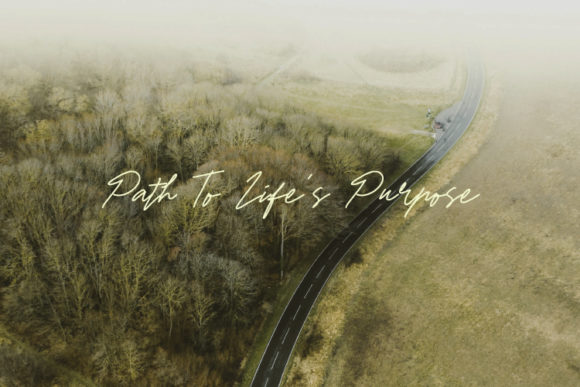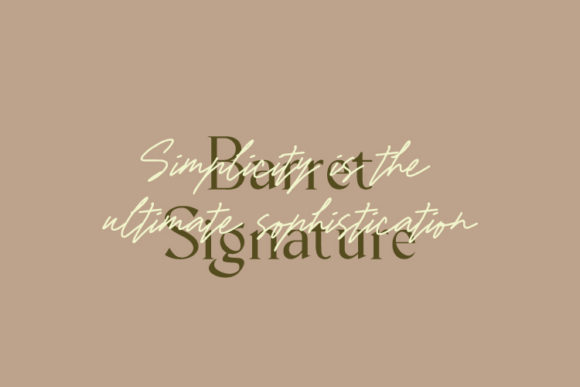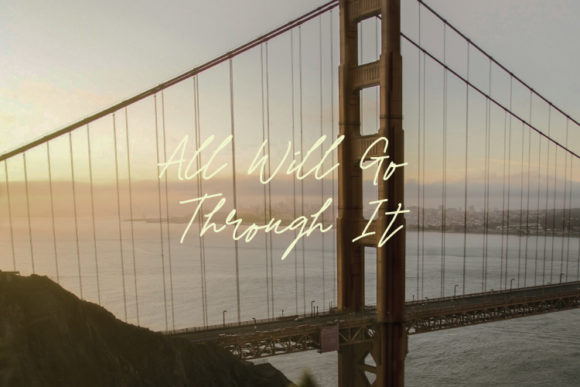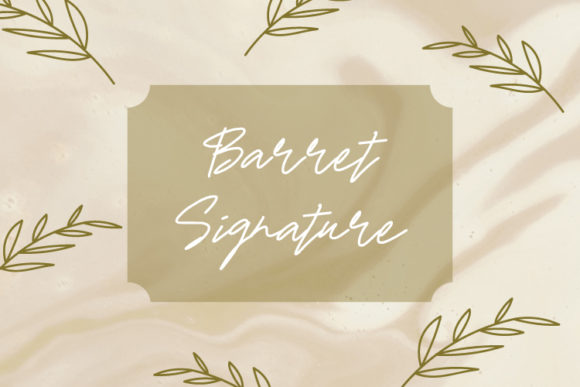
About Barret Signature Font
“Barret Signature” sounds like a fresh and relaxed handwritten font that offers versatility and ease. With its casual and laid-back style, this font is perfect for various design applications, making it a valuable asset for a wide range of projects.
By using “Barret Signature” in your designs, you can achieve a sense of freshness and relaxation. Its handwritten style adds a personal and artistic touch, making your creations feel more approachable and inviting.
This font’s versatility shines through, making it suitable for various design contexts. Whether you’re working on poster designs, book covers, merchandise, fashion campaigns, newsletters, advertising, magazines, greeting cards, album covers, or any other project, “Barret Signature” can effortlessly enhance the visual appeal and create a relaxed and engaging atmosphere.
With “Barret Signature,” you have a font that adds a touch of ease and laid-back charm, making your projects visually stunning and captivating.
Incorporate “Barret Signature” into your designs, and you’ll see how it brings a sense of freshness and relaxation, making your creations truly exceptional and inviting.
While embracing the fresh and relaxed vibe of “Barret Signature,” remember to maintain readability and legibility, especially for longer texts. Proper spacing and alignment between letters ensure that the text remains clear and easy to read, preserving the font’s overall laid-back and approachable appeal.
In conclusion, “Barret Signature” is a fresh and relaxed handwritten font that adds a touch of ease to your designs. Embrace its casual and laid-back style, and let it be the font that enhances the freshness and approachability of your poster designs, book covers, merchandise, fashion campaigns, newsletters, and other creative projects. With “Barret Signature,” your designs will exude a sense of relaxation and captivate the hearts of your audience, making them truly exceptional and visually captivating.